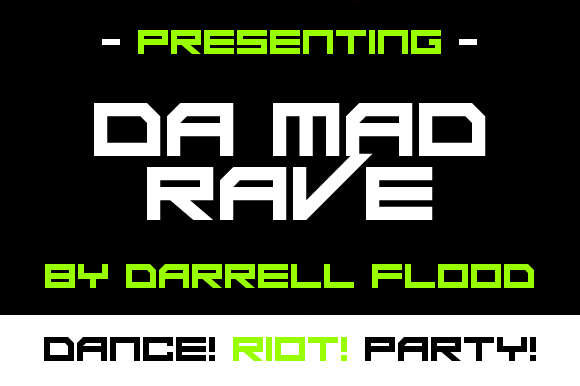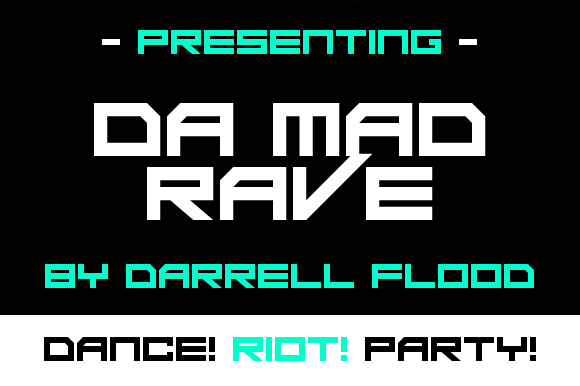
Unleash the Energy: Exploring the Da Mad Rave Font
In the realm of digital design, a font can make all the difference in capturing the essence of a brand or message. For those seeking a bold, modern, and energetic typeface, the Da Mad Rave font is an exceptional choice. This futuristic techno display typeface is specifically designed for EDM posters, nightclub branding, and loud digital headlines, making it a perfect fit for designers and crafters looking to make a statement.
Design and Characteristics
Da Mad Rave boasts a unique design that combines geometric, octagonal forms with razor-angled cuts, squared bowls, and aggressive diagonals. This fusion of shapes creates a kinetic, cyber feel that is sure to grab attention. The compact, all-caps alphabet features thick horizontals and tight spacing, making it perfect for instant impact on screens and stage visuals. Additionally, the clean counters ensure that the font remains legible even at small sizes.
Versatility and Applications
The Da Mad Rave font is incredibly versatile, making it suitable for a wide range of applications. Designers can use it to create:
- Logos: Perfect for nightlife brands, event organizers, or electronic music artists looking for a bold and modern logo.
- Festival Flyers: Create eye-catching flyers for music festivals, raves, or concerts that will surely stand out.
- Gaming Titles: Add a touch of futuristic flair to gaming titles, menus, or in-game text.
- Motion Graphics: Use Da Mad Rave to add a dynamic, high-energy feel to motion graphics, animations, or video projects.
Customization and Enhancement
To take your designs to the next level, Da Mad Rave can be easily customized with:
- Neon Gradients: Add a neon glow to your text for a mesmerizing, futuristic effect.
- Strokes: Apply bold strokes to enhance the font’s geometric features.
- Stencil Breaks: Create a distressed, edgy look by adding stencil breaks to your text.
Why Choose Da Mad Rave?
If you’re looking for a bold, modern headline font that screams nightlife energy, Da Mad Rave is the perfect choice. This sci-fi typeface:
- Drops Right on the Beat: With its futuristic design, Da Mad Rave is perfectly in tune with the latest design trends.
- Screams Nightlife Energy: The font’s bold, kinetic feel is guaranteed to capture the essence of nightlife and electronic music culture.
- Is Easy to Use: Da Mad Rave is a user-friendly font that can be easily customized to fit your design needs.
In conclusion, the Da Mad Rave font is an exceptional choice for designers and crafters looking to add a touch of futuristic flair to their projects. With its unique design, versatility, and customization options, this font is sure to make a statement. Whether you’re working on EDM posters, nightclub branding, or motion graphics, Da Mad Rave is the perfect tool to help you unleash your creativity and capture the energy of the nightlife scene.